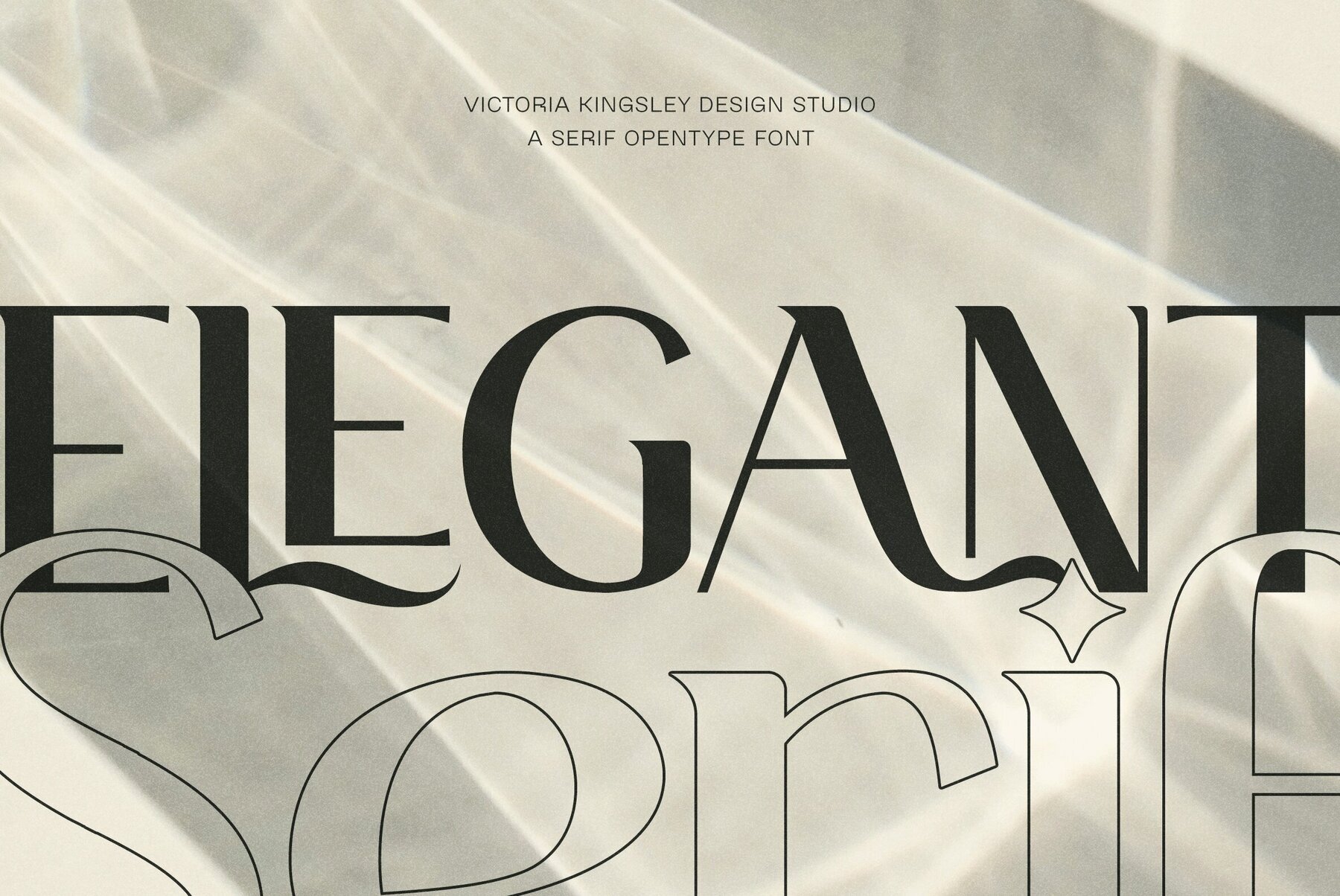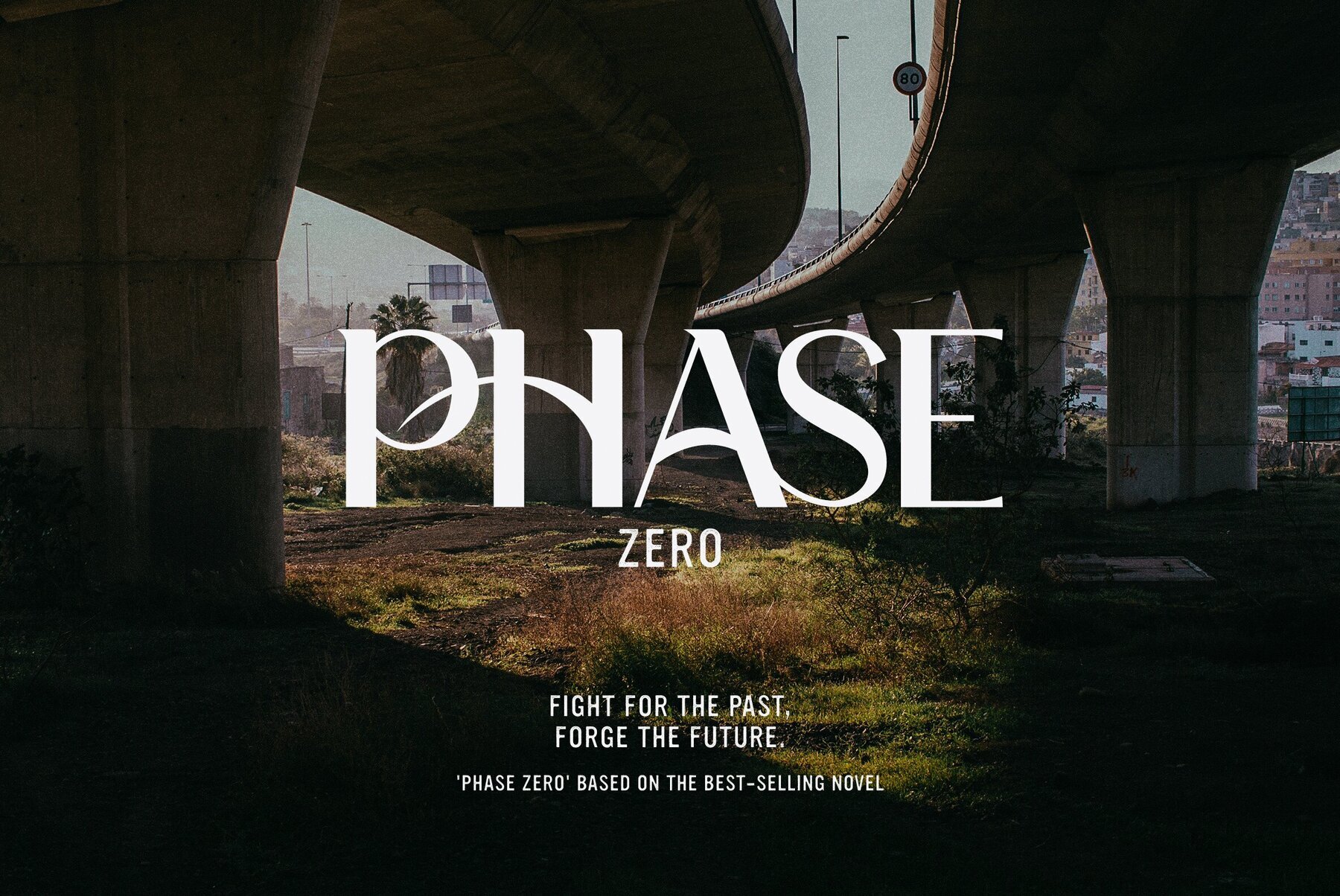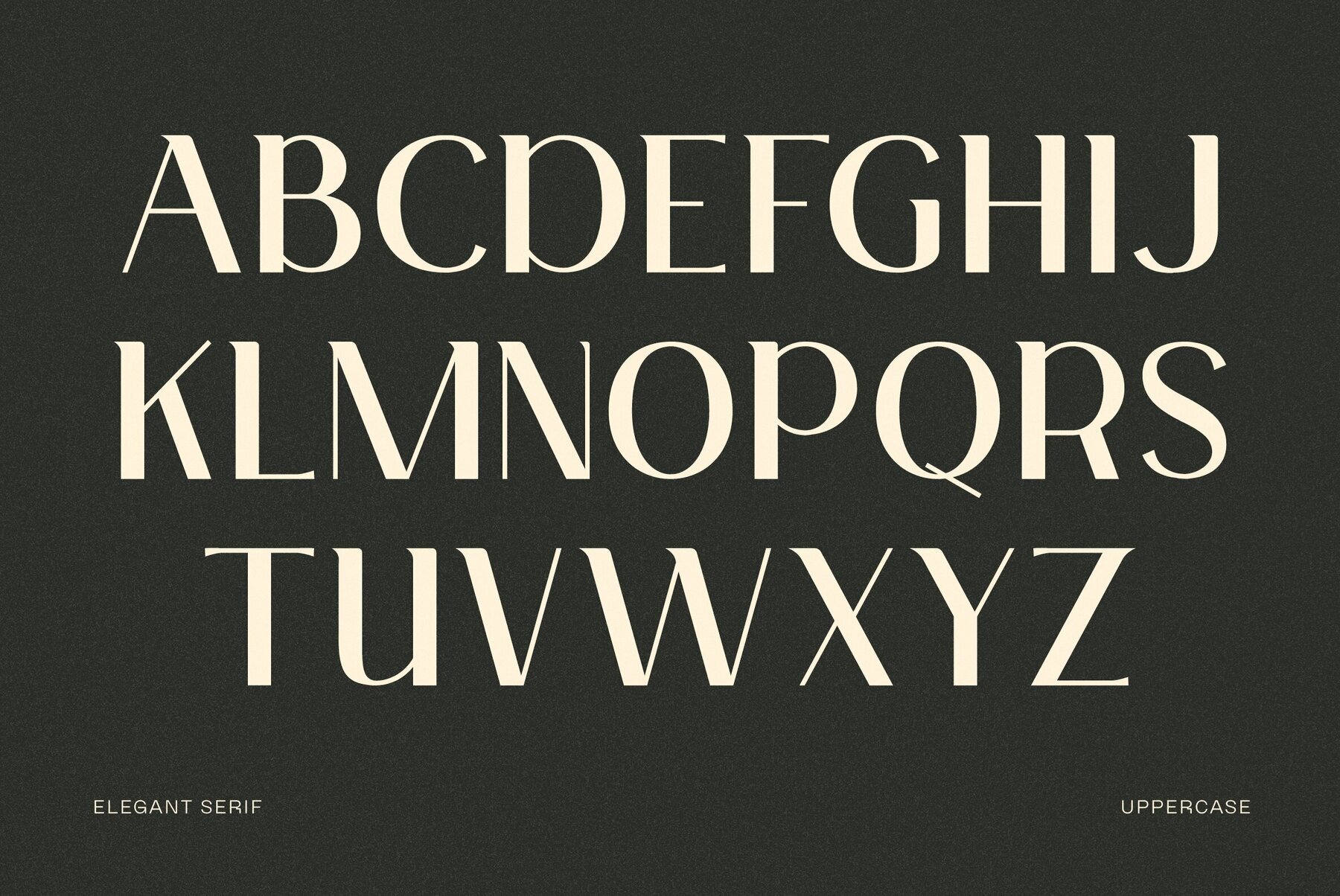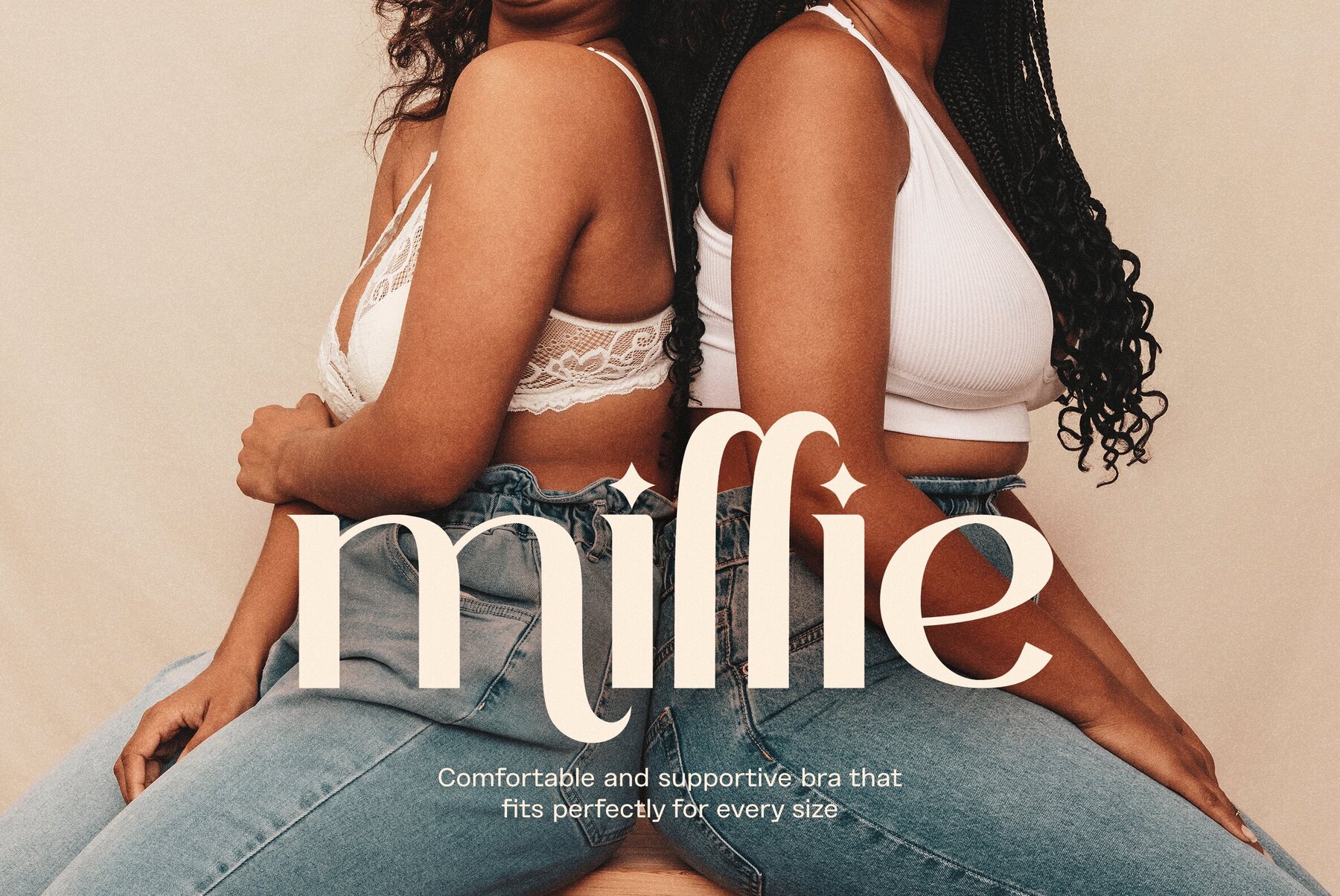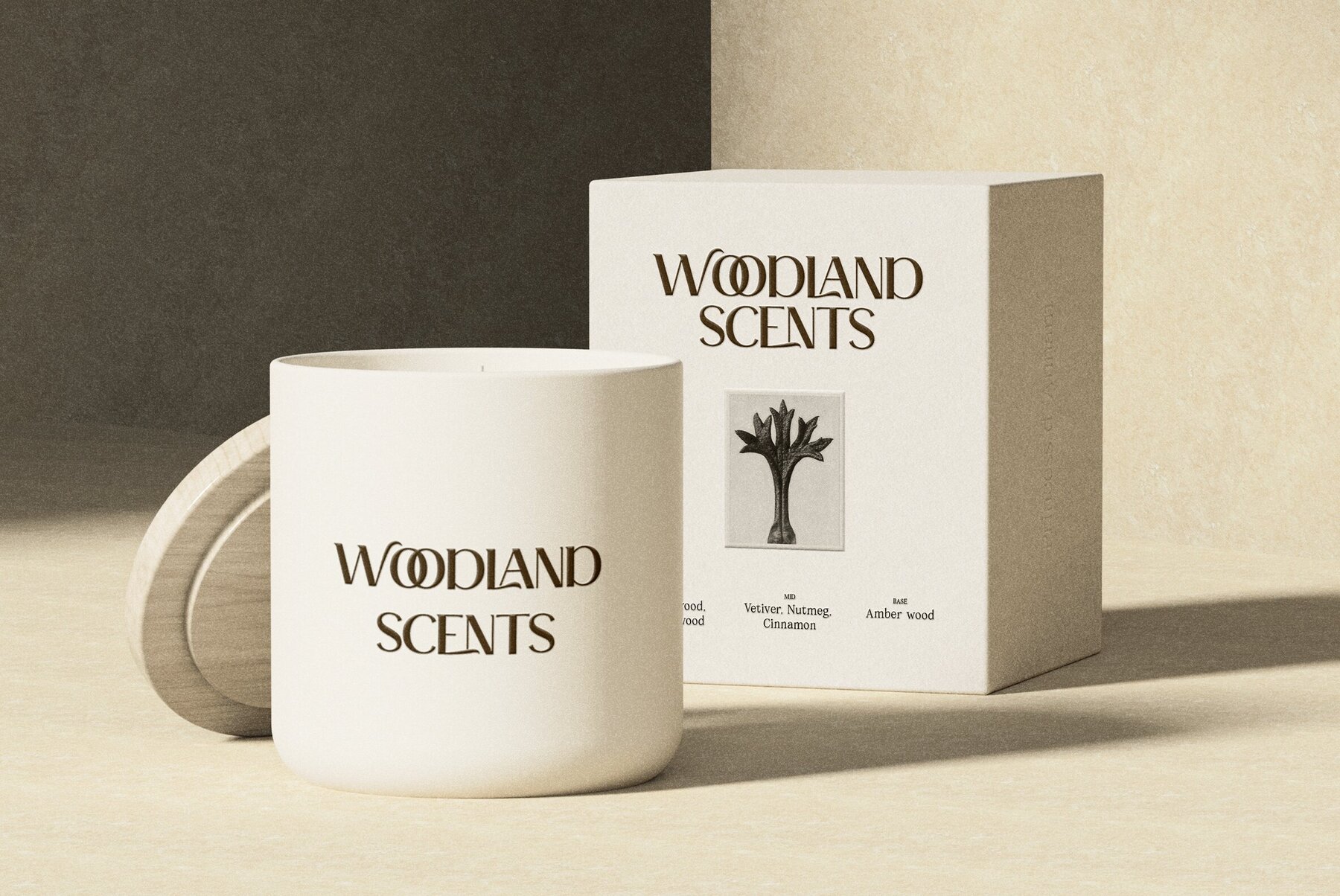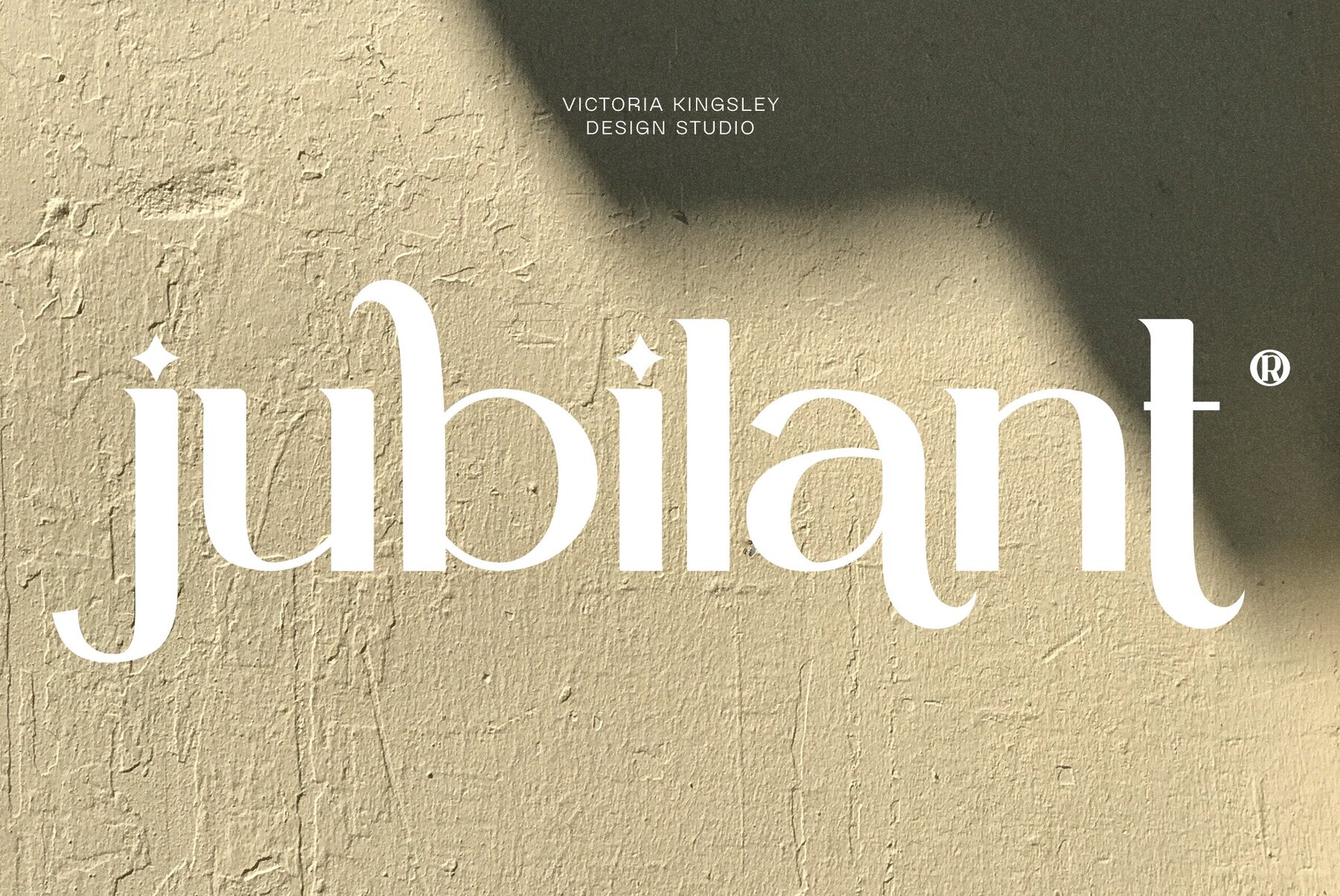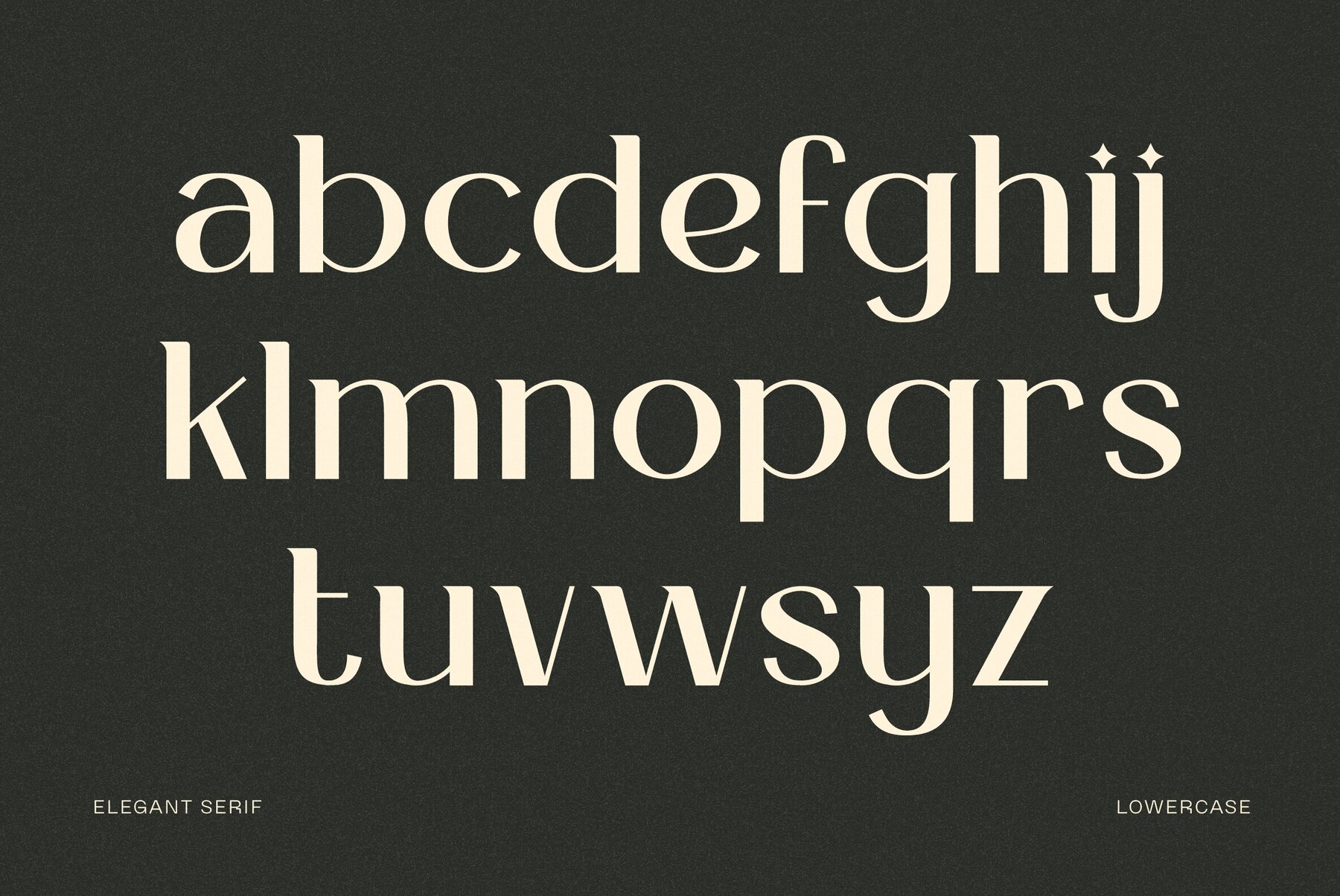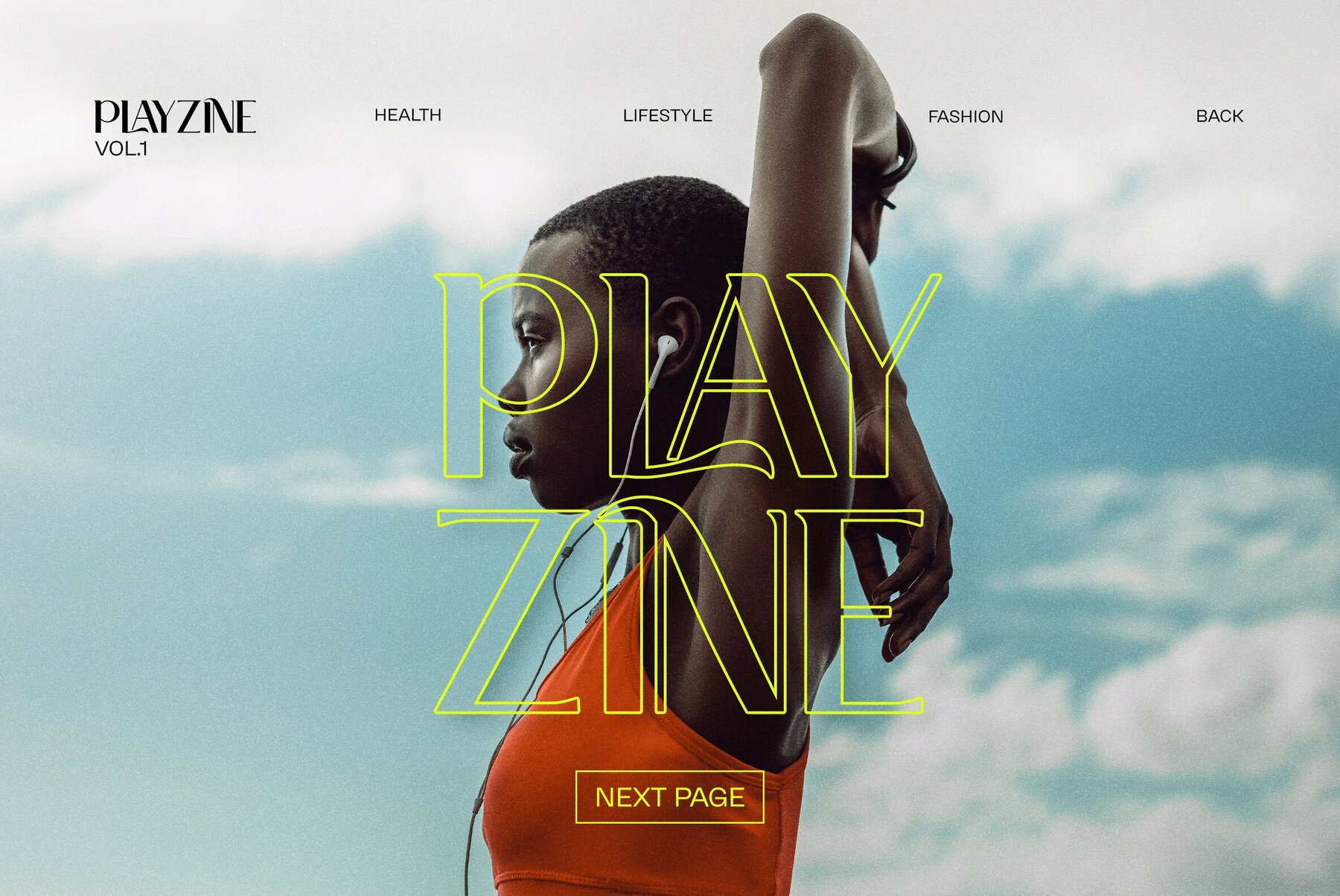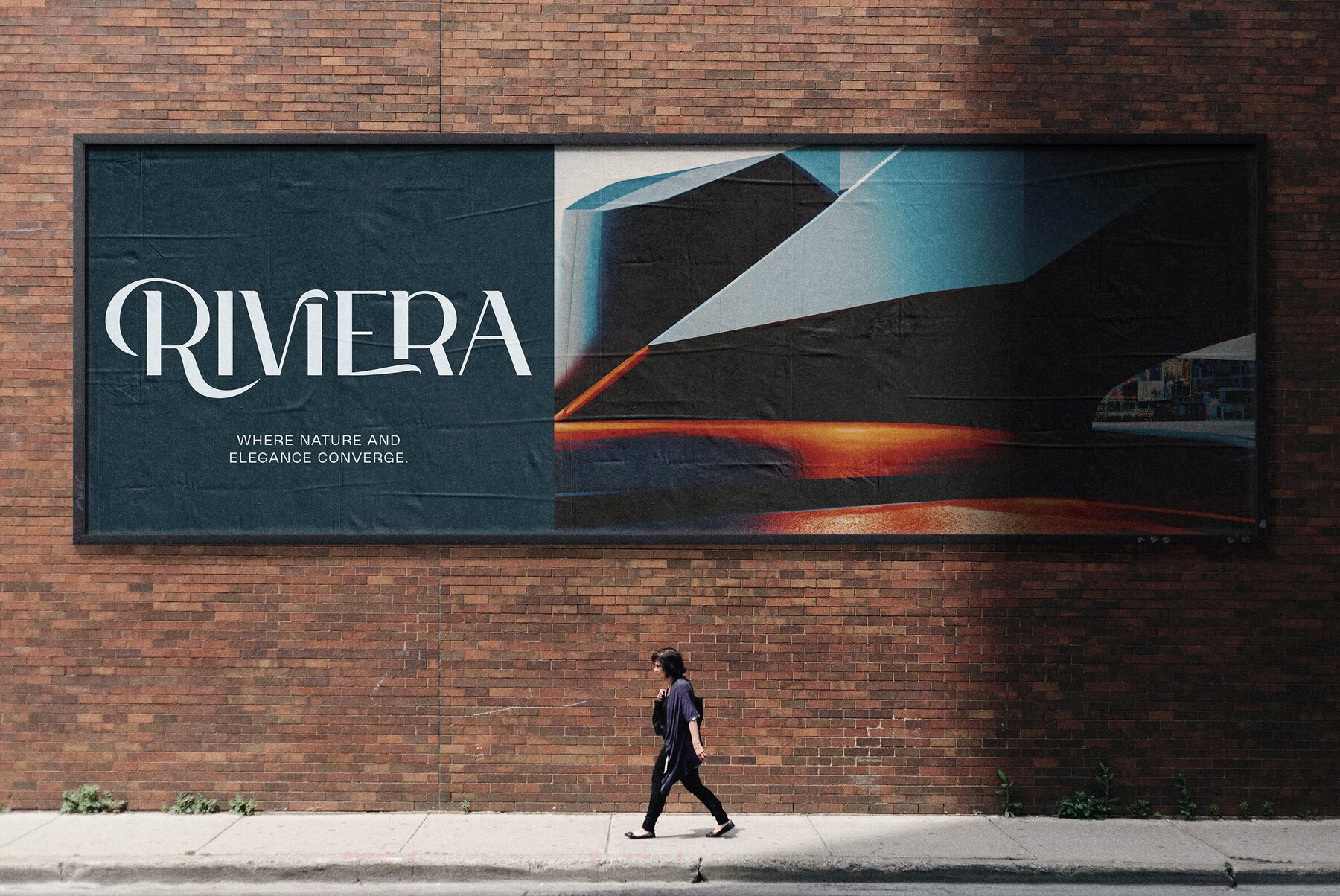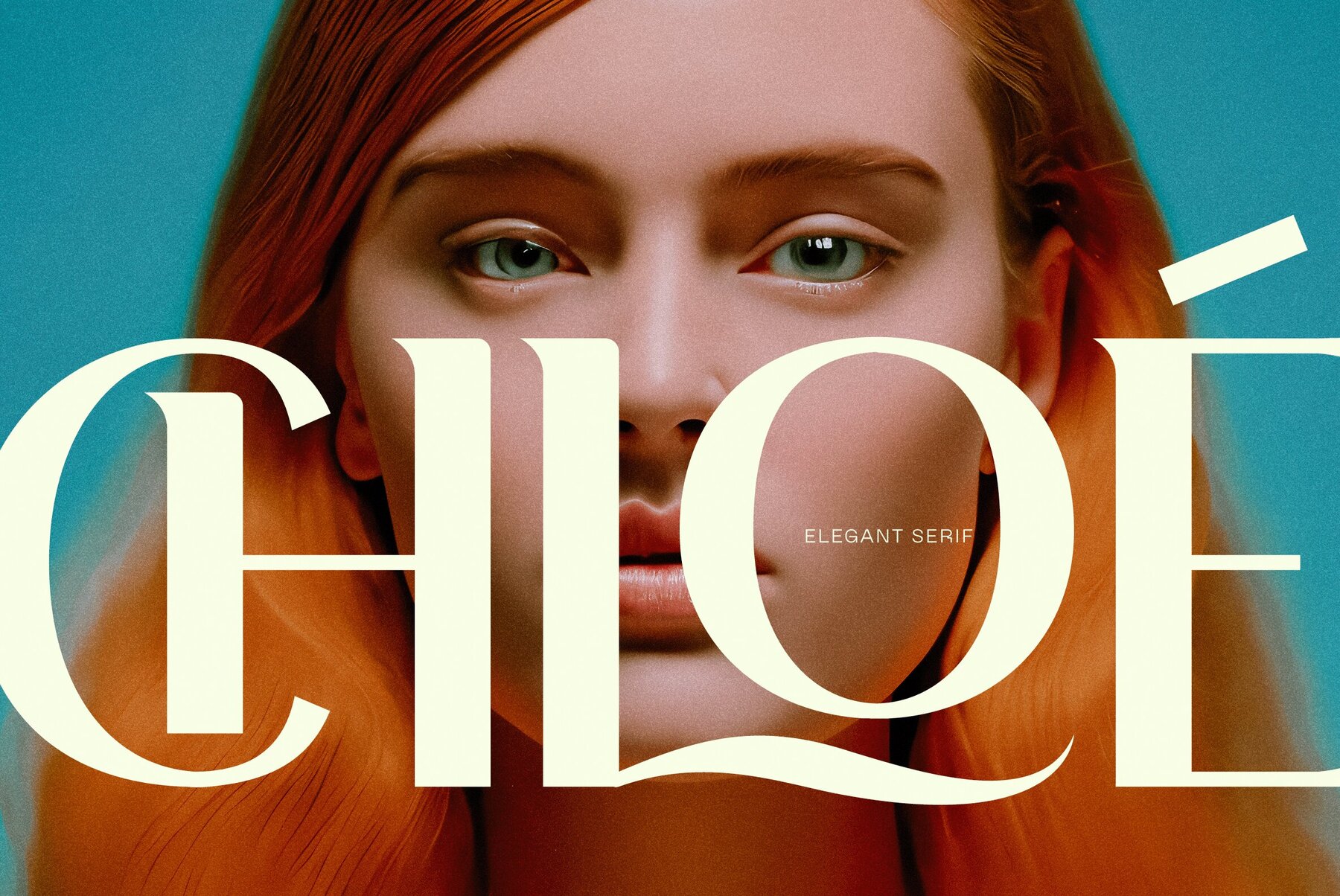
Elegant Serif Font
Elegant Serif Regular
Elegant Serif is a sharp and sophisticated display serif font, masterfully crafted by Victoria Kingsley Design Studio. Boasting over 350 glyphs and OpenType features, this exquisite font is your go-to choice for creating eye-catching and stylish headlines.
Elegant Serif's refined appearance effortlessly lends a touch of class and sophistication to a wide range of design projects. Whether you're working on editorial content, branding materials, or any other creative venture, Elegant Serif will elevate your designs with its timeless elegance and captivating charm.
Embrace the grace and refinement of Elegant Serif to make your headlines stand out and captivate your audience!